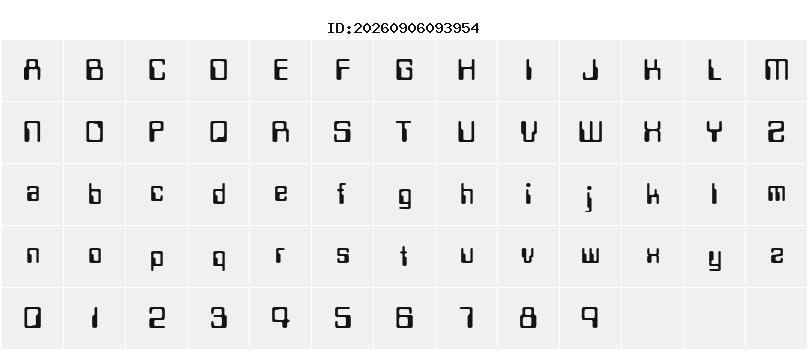
TechSchool Preview
• Font Name: TechSchool
• Full Font Name: TechSchool
About TechSchool.ttf
TechSchool.ttf is a modern, elegant sans-serif font designed for ultimate readability and visual harmony. Perfect for branding, headlines, web design, and print materials.